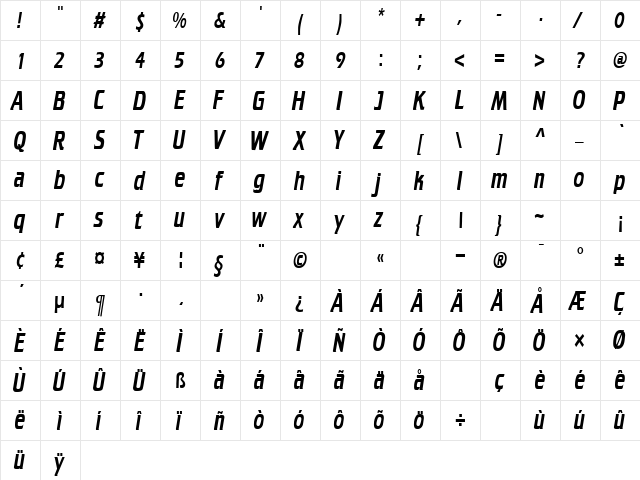
CruiserCondensed Regular Font Preview
CruiserCondensed Regular
Design Context for CruiserCondensed Typeface
CruiserCondensed is a composed and adaptable typeface that performs quietly and consistently across a wide range of design contexts. Its narrow stance lets it pack a punch even in space-constrained designs.